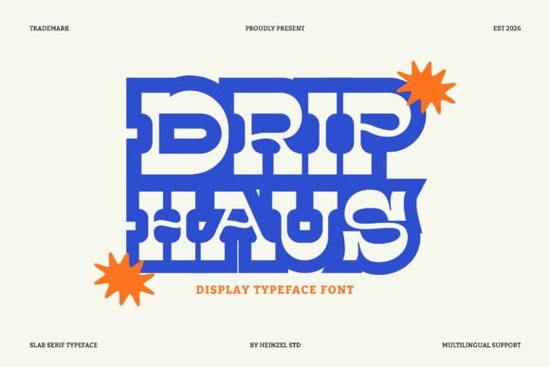
If you need a typeface that commands attention without shouting, Drip Haus Font delivers. It’s a bold slab serif display font that mixes thick block serifs with retro-inspired shapes and a modern artistic edge. The result is a letter style that feels both nostalgic and fresh perfect for anyone who wants their design to stand out.
What actually makes Drip Haus different from other slab serif fonts?
Most slab serifs rely on uniformity, but Drip Haus breaks away with uneven angles, playful curves, and character variations that feel handmade rather than mechanical. The lettershift has a slight bounce that gives headlines warmth, while still keeping enough weight to stay readable from across the room or screen
Here’s what sets it apart:- Thick block serifs create a strong foundation without feeling clumsy
nod toward mid-century posters and vintage packaging - A modern artistic twist means some characters have subtle drips or edge variations that add personality
- Works as a display font for large sizes, but still legible in medium headlines
Designers often grab Drip Haus when they want something that feels authentic and handmade, not just another industrial slab serif.
How can you use Drip Haus Font in branding and merchandise?
Because Drip Haus is so expressive, it fits naturally into projects where character matters more than subtlety. Print-on-demand sellers love it for statement tees and hoodies because the thick letters hold up well across different fabric printing methods. Small business owners use it in logos for coffee shops, music events, craft breweries, and vintage stores
Here are a few specific ideas that work well:
- Branding – Pair Drip Haus with a clean sans-serif for a logo that feels both bold and approachable
- Posters & flyers – Use it for event titles, especially music festivals or art shows
- Packaging – Labels for homemade sauces, candles, or small-batch products get an instant nostalgic boost
- Apparel – Center a single word or phrase on a t-shirt for an easy sell
- Social media graphics – Short quotes or announcements pop in Instagram stories and posts
- Editorial headlines – Magazines and zines can use it for bold chapter openings
If you’re working on a project that needs equal parts vintage charm and modern creativity, this slab serif handles the job without extra styling.
Is Drip Haus Font suitable for print-on-demand?
Yes, and that’s one of the reasons display fonts like this are popular among POD sellers. The thick strokes and open counters mean the design won’t lose detail when printed on fabric or mugs. It also scales well you can use it at 200 pt on a poster and it still reads clean, or shrink it down for a small tag without losing the character shapes.
Because the letterforms are slightly irregular, they actually look more natural on physical products than perfectly uniform fonts do. That handmade feel translates well onto t-shirts, tote bags, and even wall art. Just be sure to test the smallest size you plan to use Drip Haus is meant for display, so it’s best for short text.
Where can you find similar bold slab serif fonts?
Each of these can work alongside Drip Haus in a designer’s toolkit, depending on the mood of your project.
Practical checklist before you download Drip Haus Font
- ☐ Test the font at your target size – it shines at 36 pt and above for headlines
- ☐ Pair it with a simple sans-serif (like Montserrat or Open Sans) for body text
- ☐ Check kerning pairs if you’re using it for a logo – some letter combinations may need manual adjustment
- ☐ Download the full character set if you need numbers, punctuation, or special characters